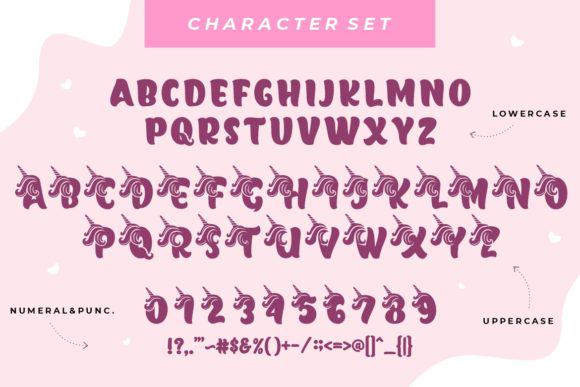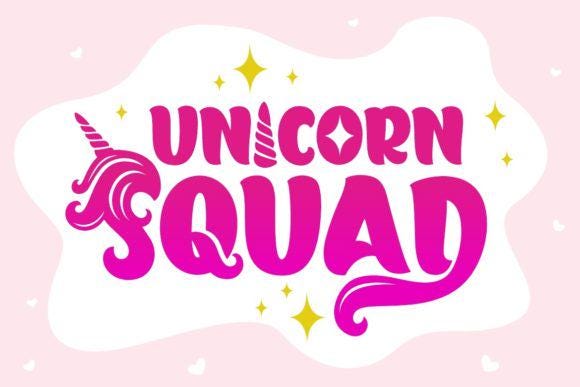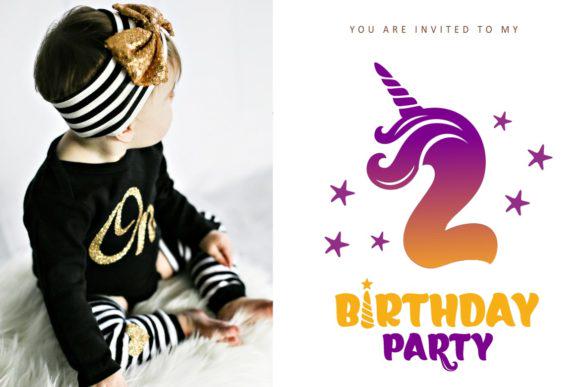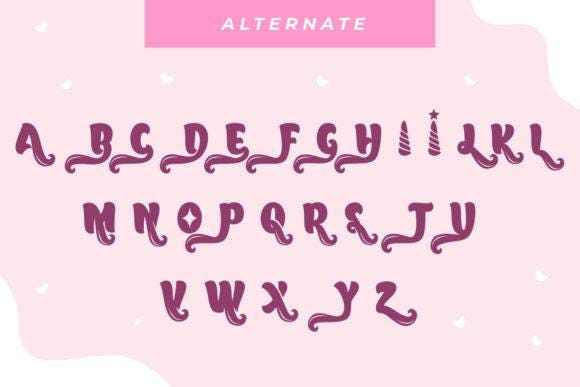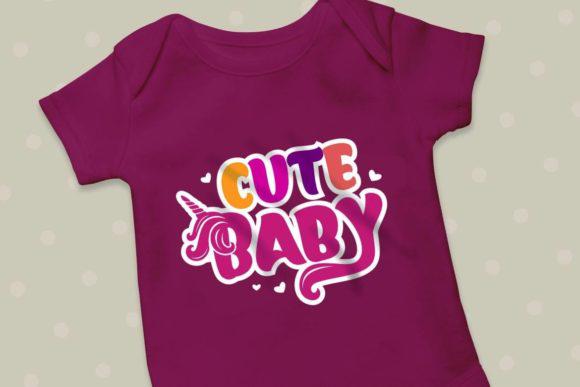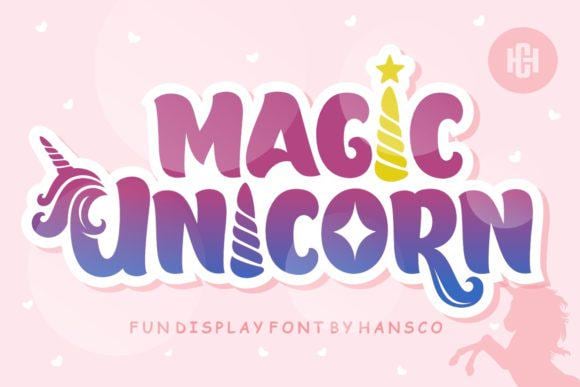
Magic Unicorn Font
Magic Unicorn is a fun, jolly and incredibly charming display font. It embodies playfulness and authenticity and is the perfect choice for any children activity or school project.